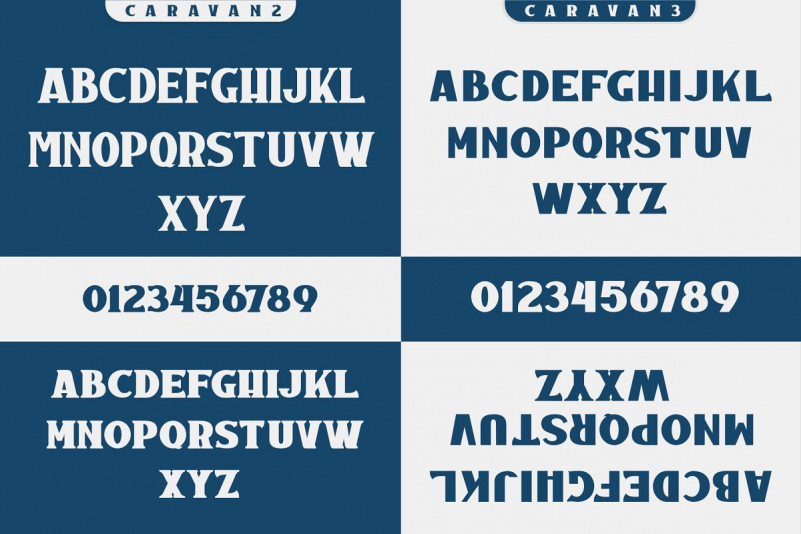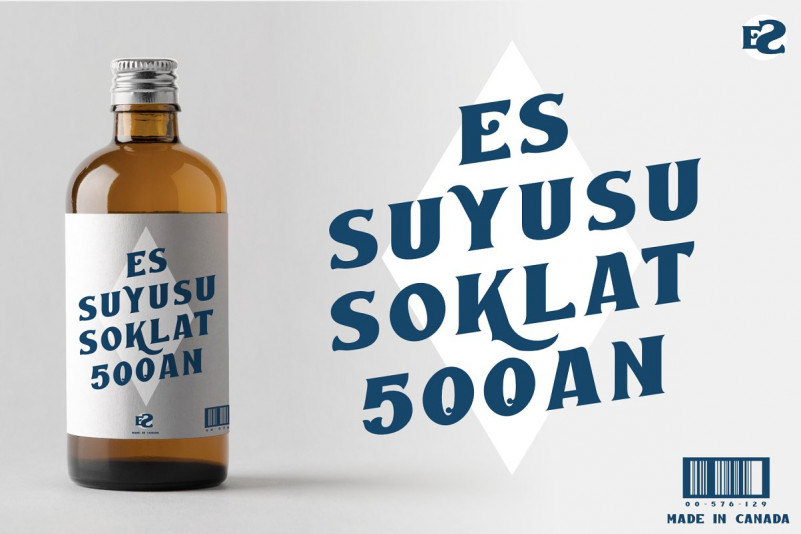
Caravan Display Font
Caravan Display Demo Font
Introducing Caravan Font. It is designed by Khoir, this is a premium font, are sold on creativemarket, but it was great, it is free today for download. Introducing classic and elegant Caravan Fonts but don’t forget to leave a modern impression in each letter, which combines ancient retro style with a simple and modern style, Caravan Fonts are equipped with full features, in each letter there are interesting alternatives and can be an alternative when designing, there are also an added bonus of Roman-style illustrations, which make you feel young to realize the design you want. so what are you waiting for